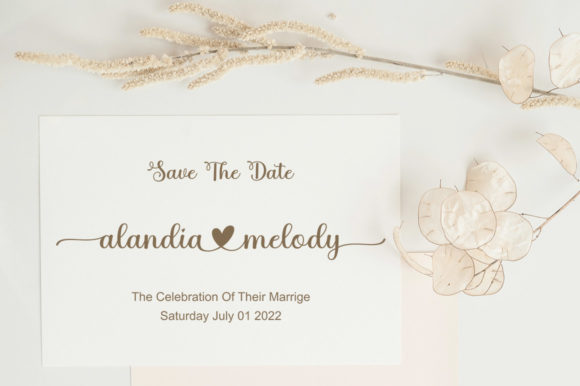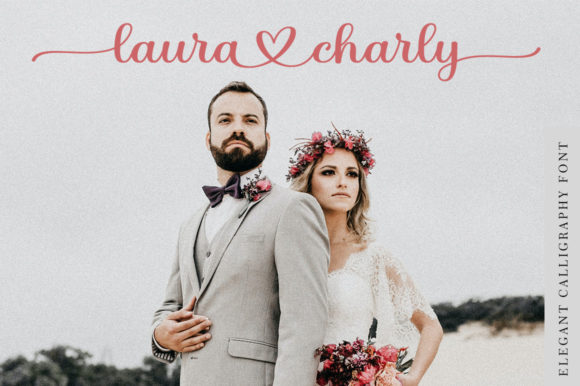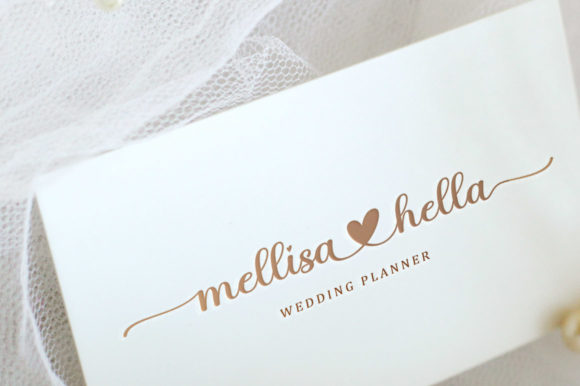
Introduction to Justine Honey Font
As a designer, have you ever found yourself stuck on a creative project, searching for the perfect font to bring your vision to life? The hunt for the ideal typeface can be overwhelming, especially when you’re aiming for a specific aesthetic or atmosphere. But what if I told you that you’ve just stumbled upon a hidden gem – the enchanting Justine Honey Font?
This charming calligraphy font is a game-changer for any design project that requires a touch of romance and elegance. With its whimsical, handwritten feel and beautifully crafted characters that dance along the baseline, Justine Honey Font is sure to add a luxury spark to your work. Whether you’re a seasoned designer or just starting out, this versatile font is an invaluable resource that will elevate your designs to new heights.
And the best part? With PUA encoding, you’ll have access to all the amazing glyphs and ligatures, making it easy to create high-quality designs with a transparent background. So why settle for anything less when you can download the stunning Justine Honey Font for free and unlock your full design potential?
Key Features of Justine Honey Font
- High-quality design resource perfect for creative projects and various applications.
- Transparent background for easy layering and customization in graphic design projects.
- High-resolution design (scalable up to 72 dpi) ensures crisp and clear text display in various sizes.
- Unique, elegant, and cursive font style ideal for creating eye-catching headings and titles in creative projects.
- Designed to be versatile and suitable for use in a wide range of design applications, from digital to print media.
Honest Review: Justine Honey Font
I recently stumbled upon the Justine Honey Font, and I must say it’s been a delightful addition to my design resources. As a designer, I’m always on the lookout for high-quality fonts that can elevate my creative projects. The Justine Honey Font has been a great find, offering a unique and elegant style that’s perfect for various design applications.
Here are some aspects that work well: ✨
- High-quality design: The font’s intricate details and smooth lines make it a great choice for any design project.
- Transparent background: This feature allows for seamless integration with any design element, giving me more flexibility in my creative work.
However, there are some limitations to consider: ⚠️
- Limited font styles: While the font itself is beautiful, the number of available styles is somewhat limited.
- May not be suitable for all design applications: The font’s unique style may not be the best fit for certain design projects, such as titles or headings.
Overall, I’m quite impressed with the Justine Honey Font. It’s a great addition to any designer’s toolkit, offering a unique and elegant style that’s perfect for various design applications. While it may have some limitations, it’s a high-quality font that’s definitely worth considering for your next creative project.
How to Use Justine Honey Font
The Justine Honey Font is a high-quality design resource ideal for creative projects that require a touch of elegance and sophistication. This free download offers a transparent background, making it easy to integrate into various design platforms.
Tips for Getting the Most Out of the Justine Honey Font
Here are some tips for getting the most out of the Justine Honey Font:
- Experiment with different font sizes and styles to achieve the desired look.
- Combine the Justine Honey Font with other high-quality fonts to create a unique design.
- Use the font in conjunction with high-quality images to create a visually appealing design.
The Justine Honey Font is ideal for:
- Wedding invitations and stationery.
- Business cards and marketing materials.
- Graphic designs and digital art.